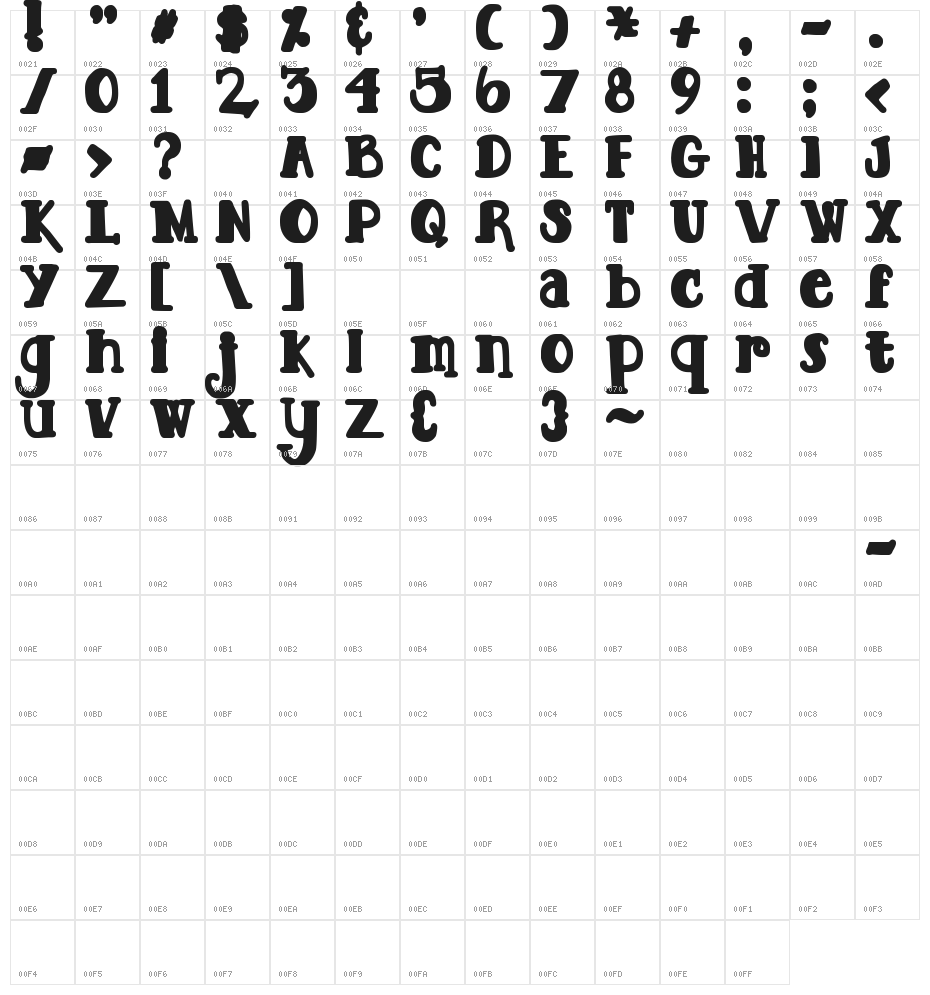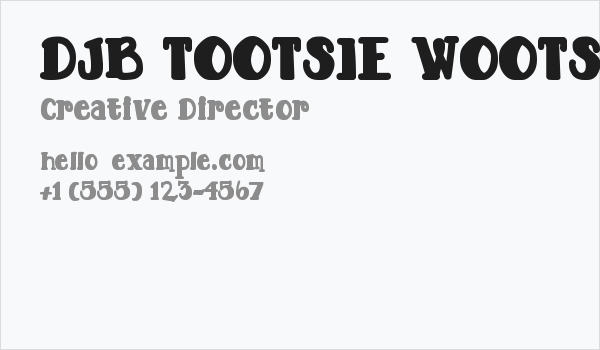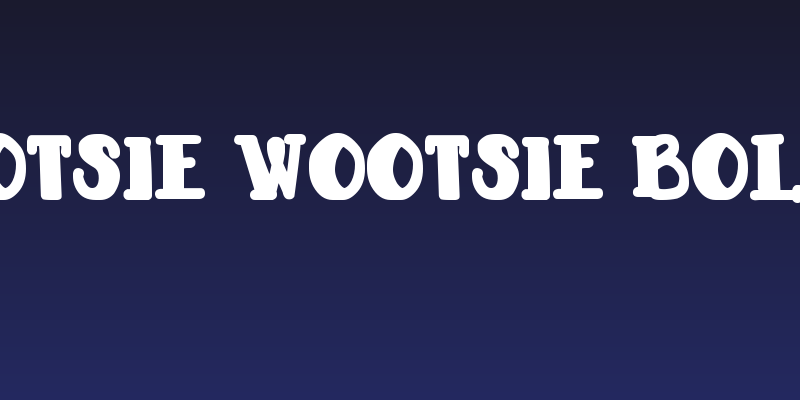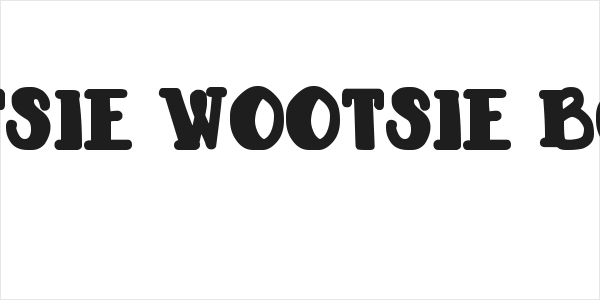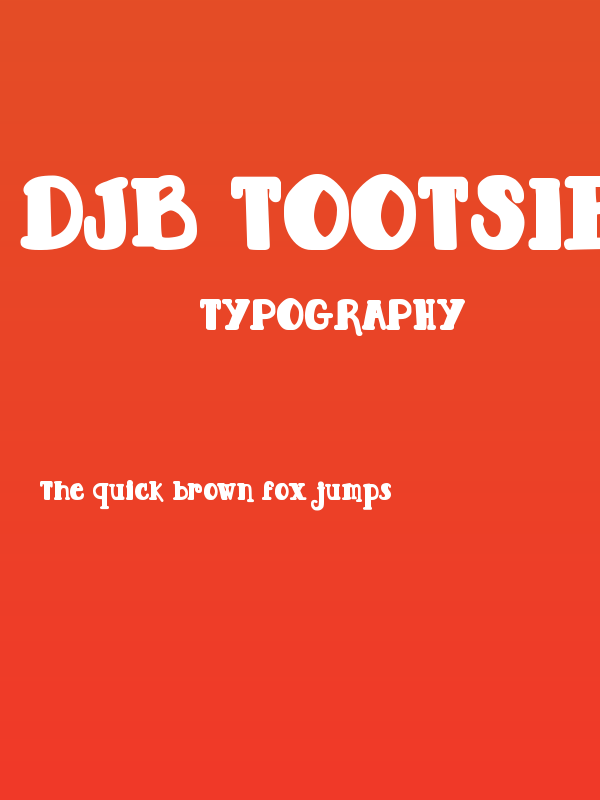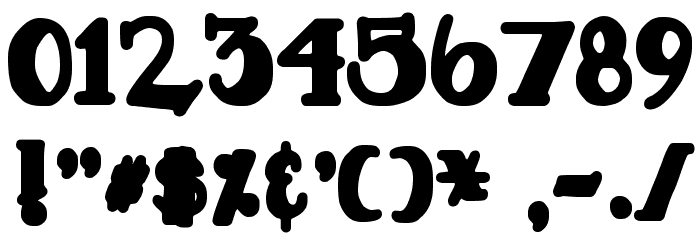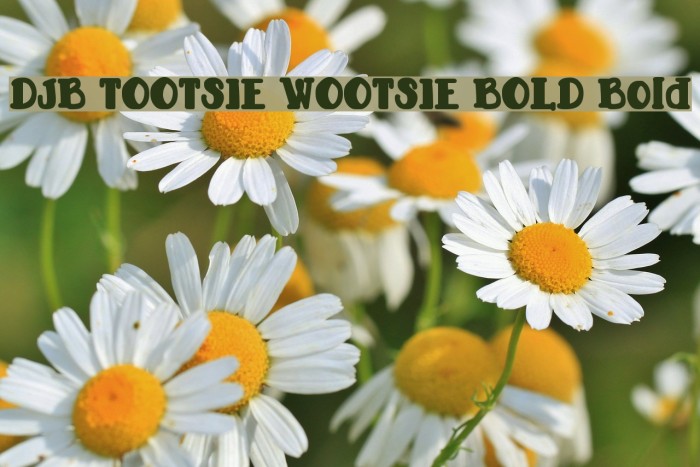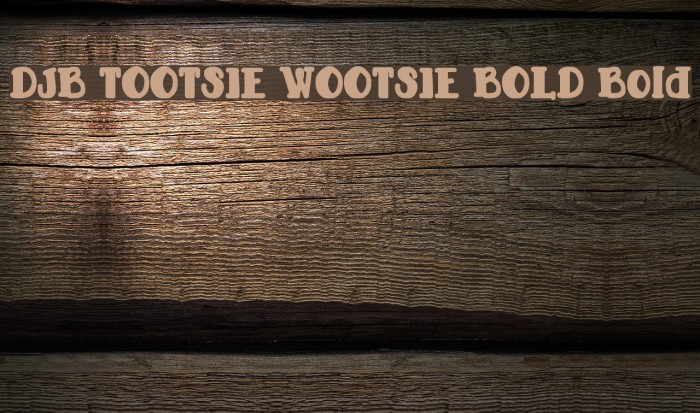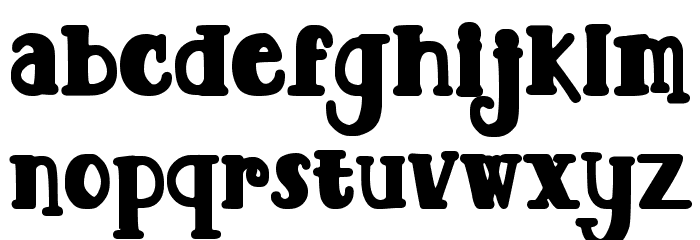
DJB TOOTSIE WOOTSIE BOLD Bold Font
DJB TOOTSIE WOOTSIE BOLD Bold Description
| Proposed Projects | Ideal for children's books, playful branding, party invitations, and creative posters. |